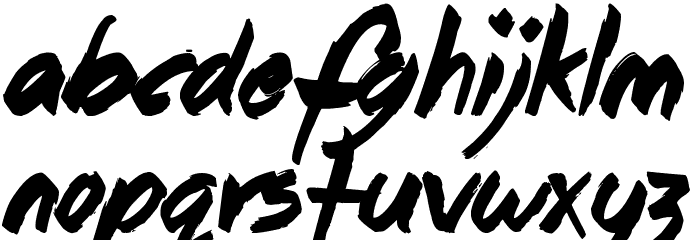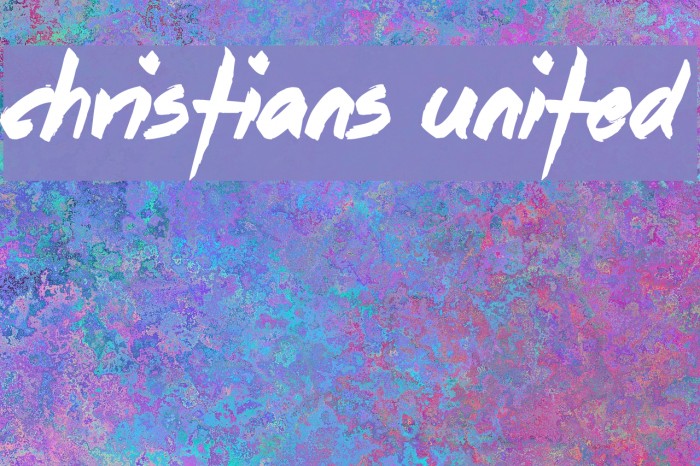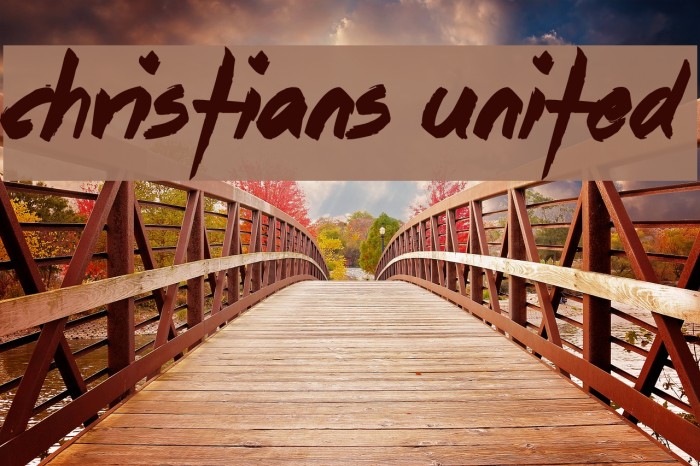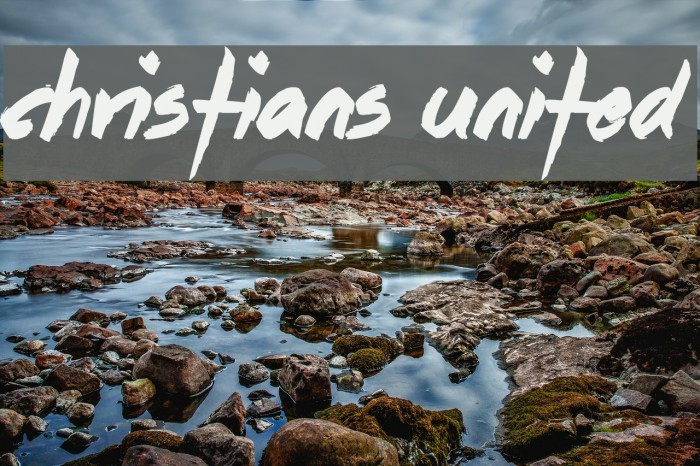
Christians United Font
This font features a bold, expressive style with a brush-like appearance, giving it a dynamic and energetic feel. The strokes are thick and uneven, creating a sense of movement and spontaneity. The characters are slightly slanted, adding to the informal and artistic vibe. This font is highly decorative, with a strong visual impact that makes it suitable for attention-grabbing designs. The lowercase letters are consistent in style, maintaining the bold and fluid characteristics throughout. The overall impression is one of creativity and boldness, making it ideal for projects that require a strong visual statement.
A bold, brush-style font with dynamic and expressive strokes.
- Font: Christians United
- Proposed Projects: Ideal for posters, album covers, branding, and any design needing a bold, artistic touch.
- Character Spacing: Tight